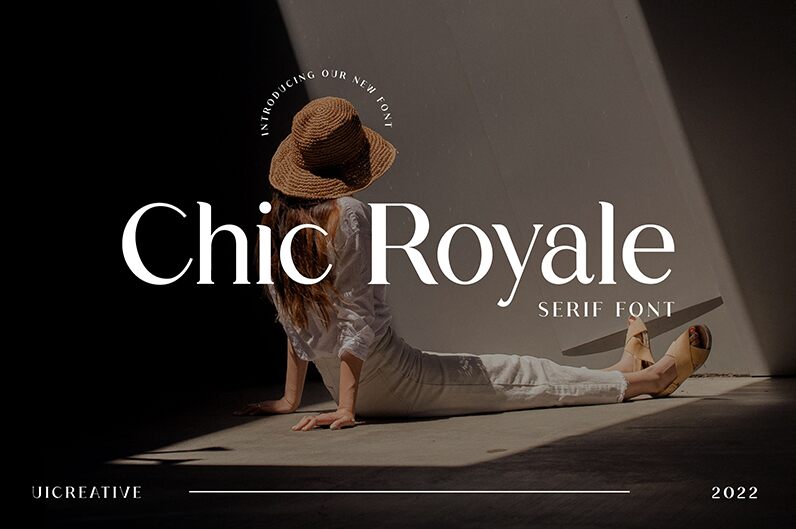
Chic Royale font by UI Creative is a free serif font characterized by its sophisticated charm and elegant appearance. This typeface is professional yet simple, which makes it a perfect choice for elegant designs meant to capture the interest of a wider public. Its timeless letterform gives it a contemporary appeal and makes it suitable and effective for wide use.
Use Chic Royale font in your luxury packaging and labels, website design, blogging, brand identity, logo design, as well as personal projects. Use this typeface also for product packaging, office stationery, editorial, or advertising.